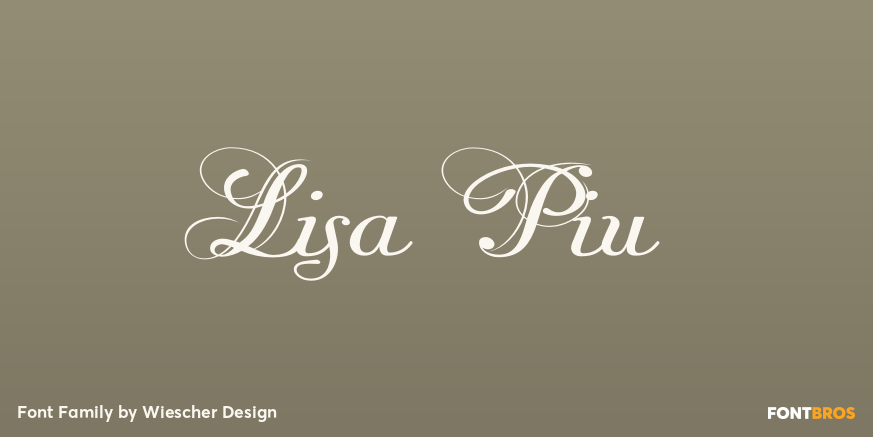
Lisa Piu
About Lisa Piu
Lisa is an elegant script family in the tradition of early Italian type designers like Bodoni. I added counter strokes and floral embellishments to the font. Lisa comes in three variations: the beautiful Lisa Bella, the flowery Lisa Fiore and the extra…